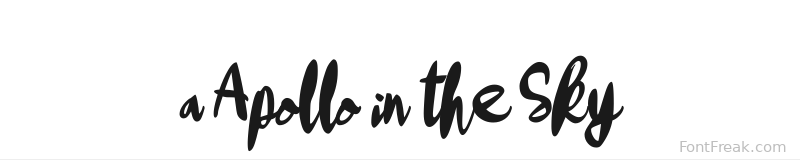
a Apollo in the Sky
The "a Apollo in the Sky" font, created by Wahyu Eka Prasetya, is a captivating handwritten style typeface that embodies a modern, casual elegance. This display font features smooth, flowing strokes with a playful flair, making it ideal for a variety of creative projects. The stroke weight is consistent yet varies slightly in certain characters, adding a sense of personality and charm. The character spacing is thoughtfully designed, ensuring readability while maintaining an artistic touch. The curves and organic lines give the font a warm, inviting feel, making it perfect for conveying a personal message.
This versatile font shines in several specific use cases. It is particularly well-suited for wedding invitations, where its romantic script can beautifully capture the essence of the occasion. Additionally, "a Apollo in the Sky" is an excellent choice for crafting eye-catching movie posters, as its unique style can draw attention and evoke emotion. Restaurant menus can benefit from its appealing design, creating an inviting atmosphere that complements the dining experience. Content creators will find it useful for social media graphics, where a distinctive font can enhance engagement and interest.
Targeting graphic designers, small business owners, and content creators, this font offers a playful yet sophisticated option for anyone looking to elevate their visual content. The "a Apollo in the Sky font free download" is an accessible choice for those wanting to add character to their projects without compromising on quality.
What truly sets this font apart is its ability to blend whimsy with professionalism, making it suitable for both casual and formal applications. Its distinct style ensures that any text stands out, leaving a lasting impression on viewers. Embrace the charm of "a Apollo in the Sky" to transform your creative endeavors.